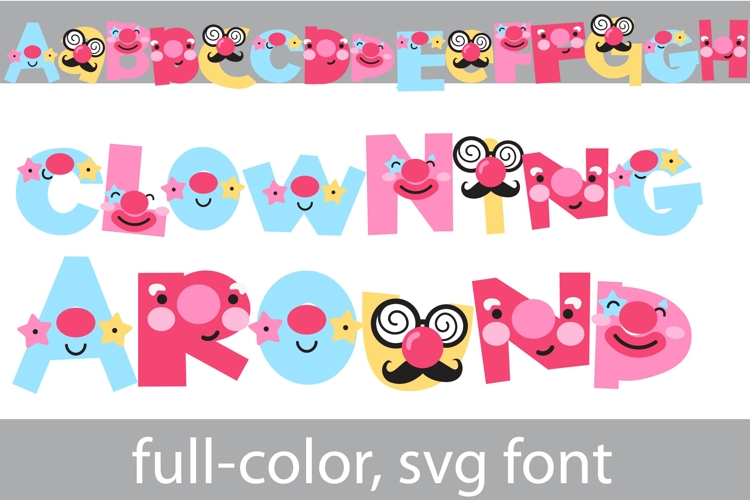
Clowning Around Color Font
This full-color font features bright and fun clown-like lettering. There is an alt case of each letter with a different color combination.